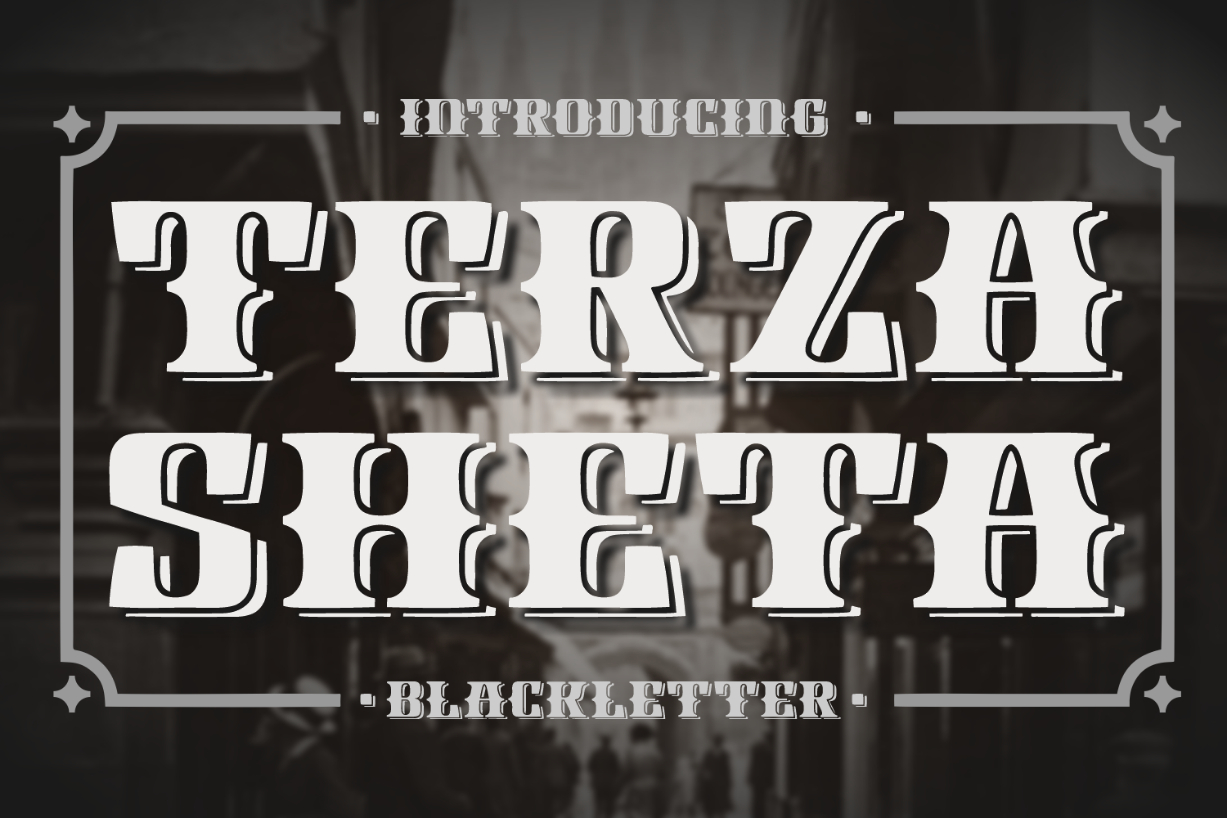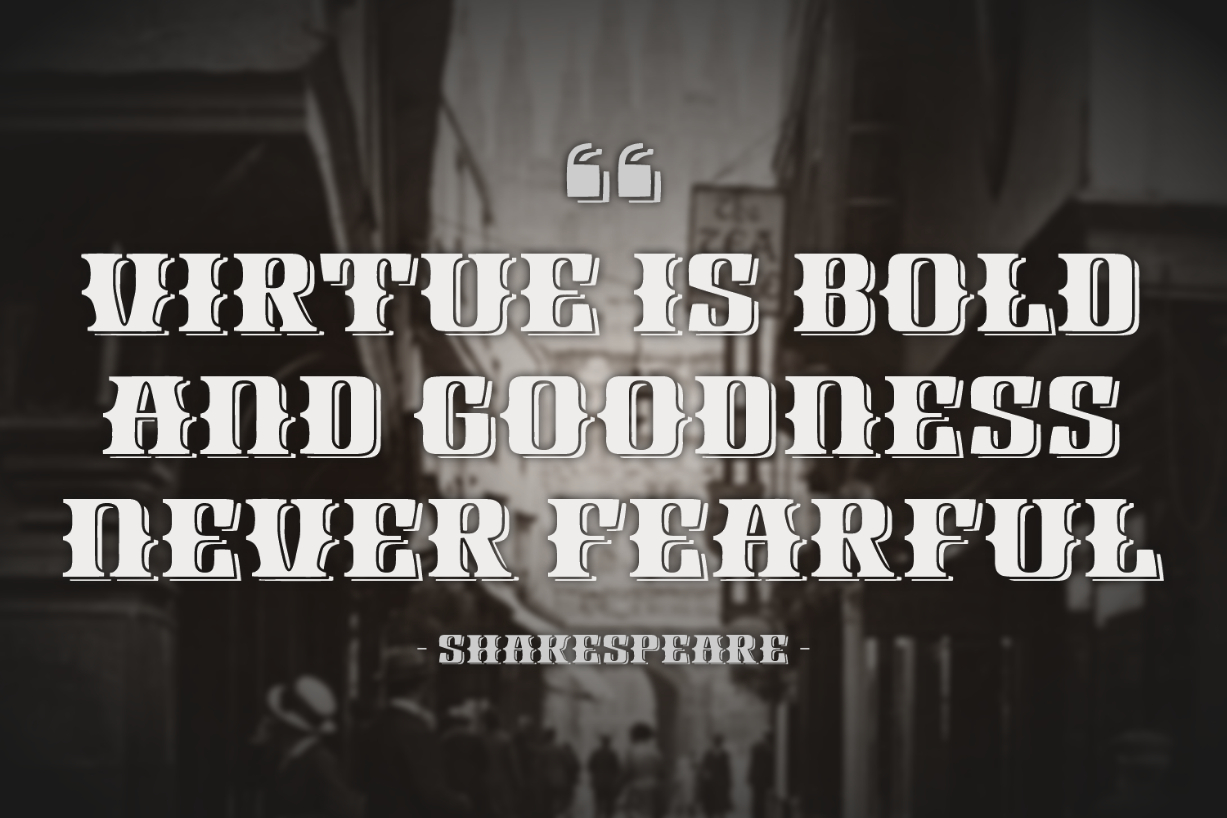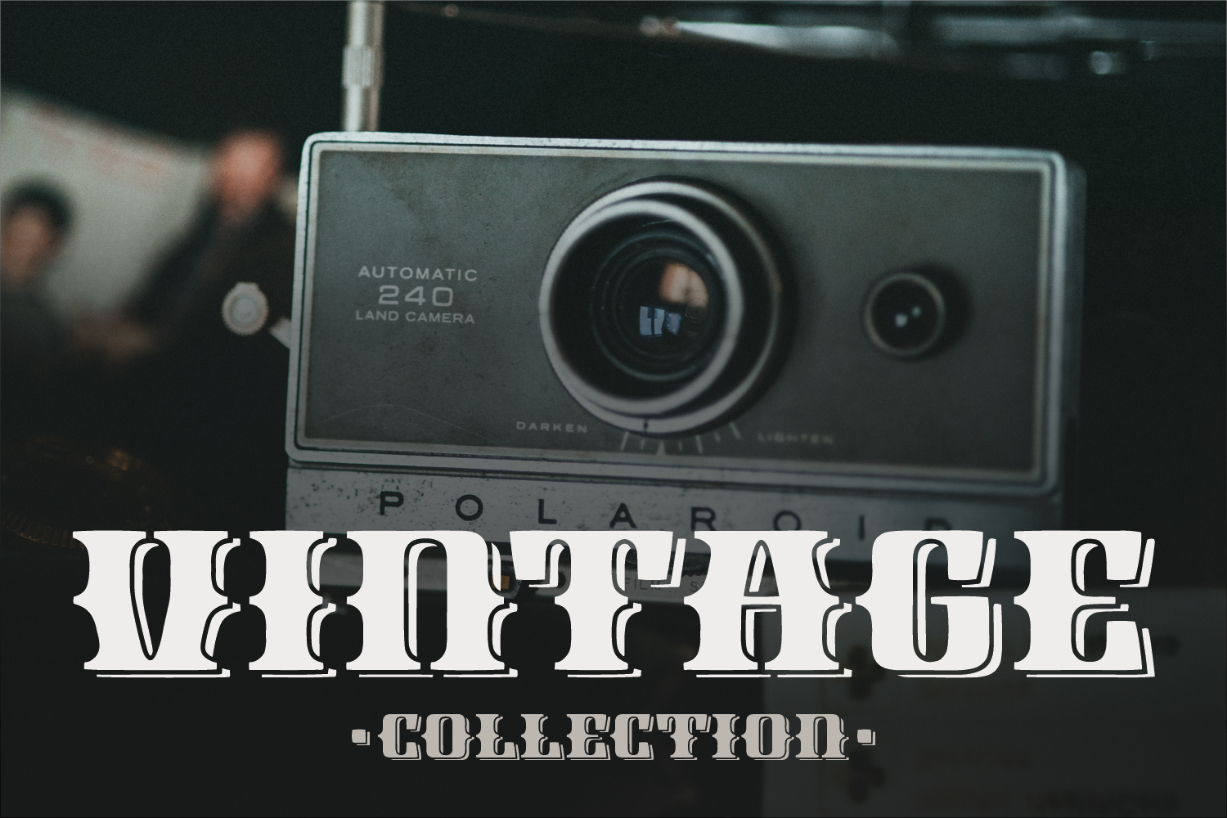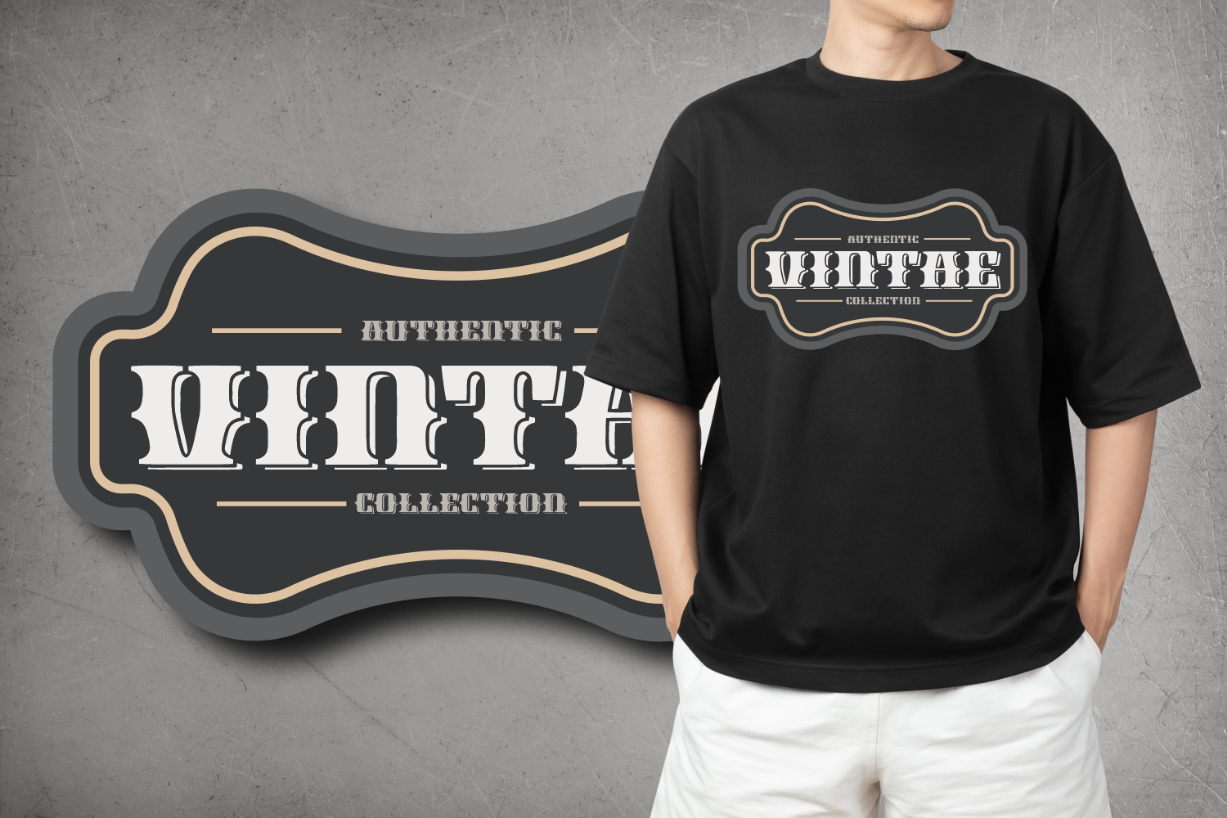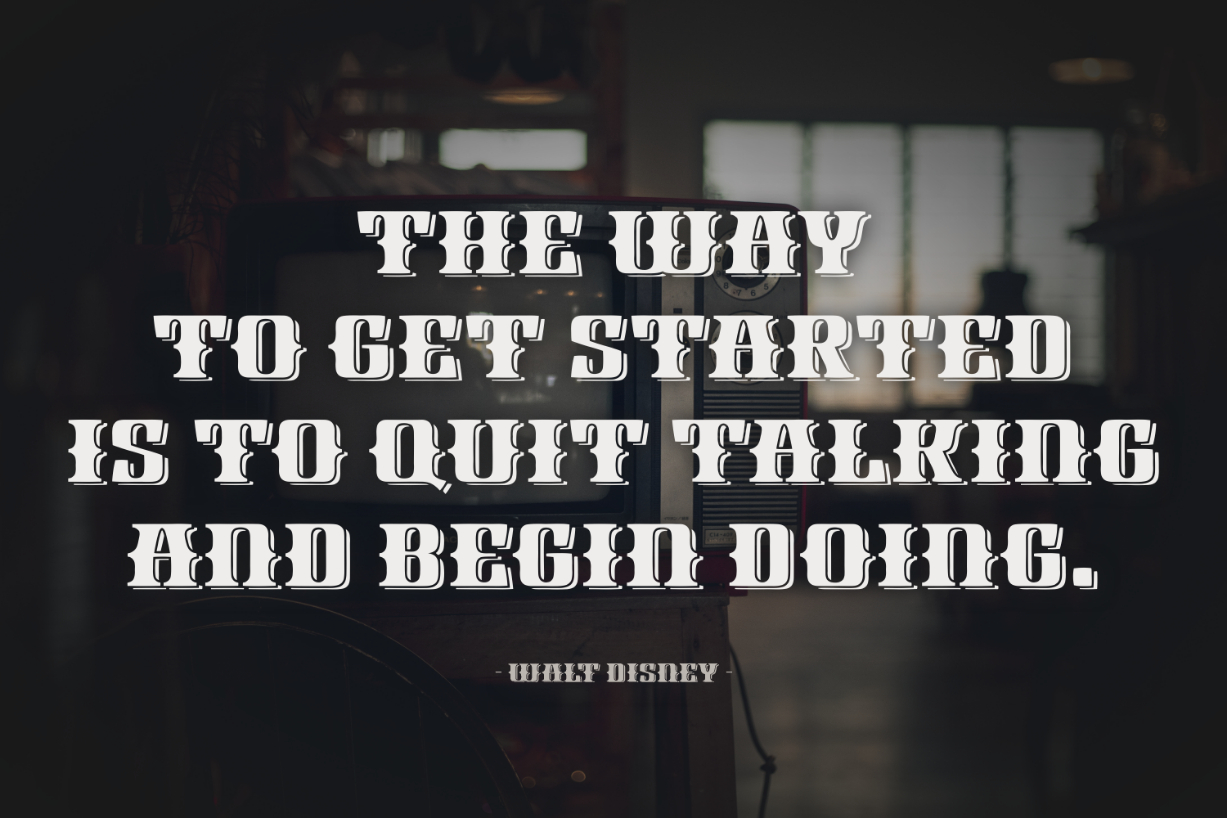
Terza Sheta Font
About Terza Sheta Font
Terza Sheta is a chunky, 3D-looking blackletter font. Captivate your audience’s attention with this impressive font that has the potential to elevate any creation! It is the perfect choice for titles, book covers, logos, branding projects, product packaging, t-shirts, signage, and more.